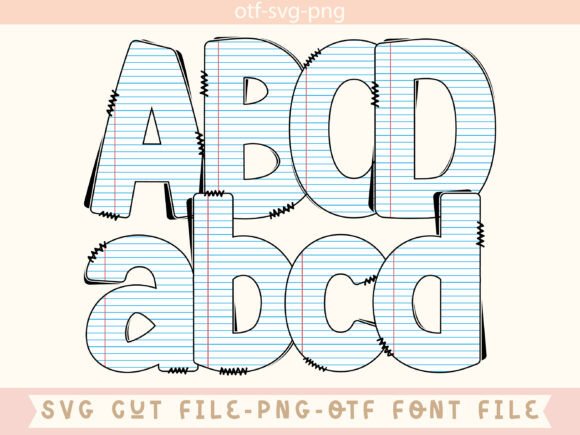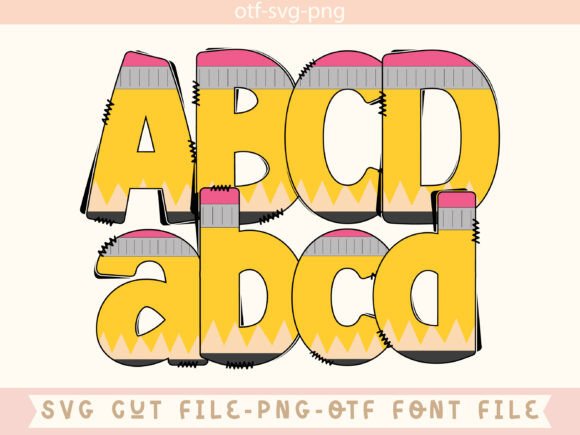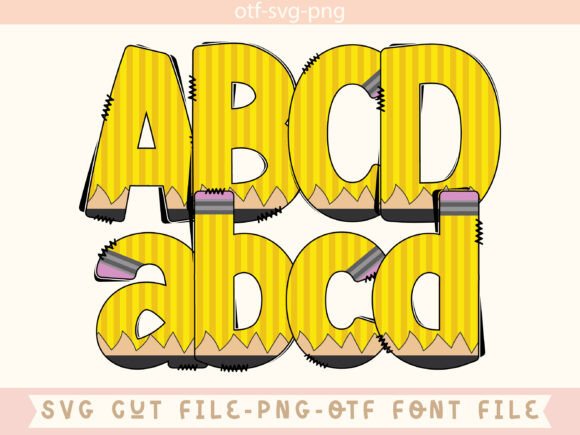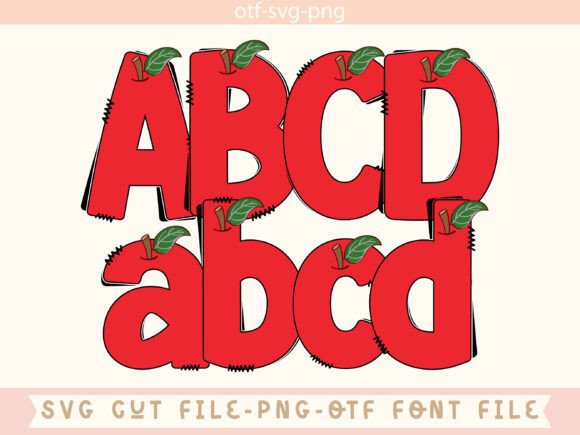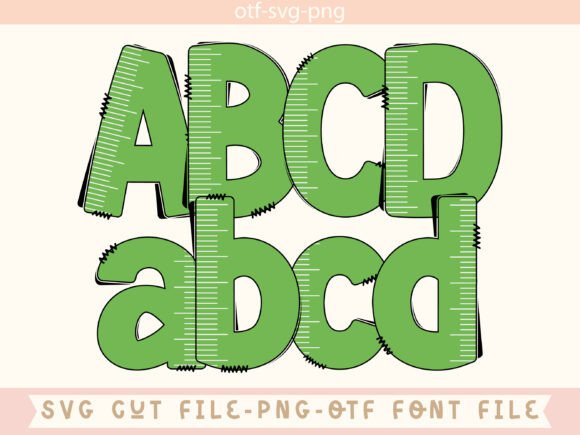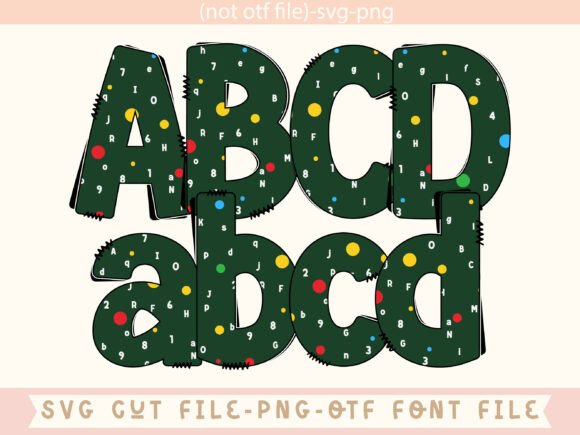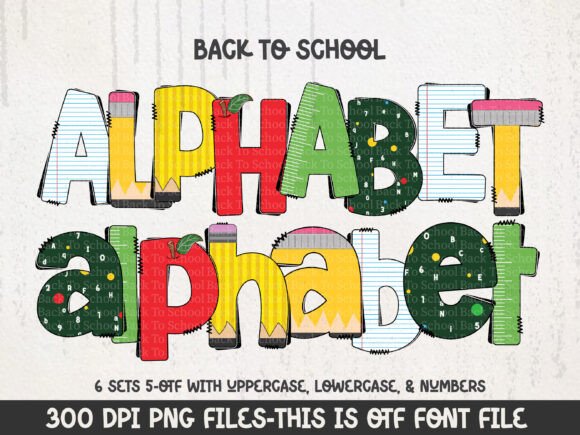
Back to School Font: Elevate Your School’s Branding and Creative Projects
As the new academic year approaches, schools are gearing up to refresh their branding and create engaging materials for students, teachers, and staff. One crucial element in establishing a strong visual identity is the choice of font. Introducing the Back to School Font, a cool lettered and display font designed specifically for schools to elevate their branding and creative projects.
What is Back to School Font?
The Back to School Font is a versatile and stylish font perfect for schools looking to add a personal touch to their materials. This font is ideal for creating eye-catching T-shirts, branding, custom DIY craft projects, quotes, and more. By combining specific colors with carefully chosen typefaces, schools can create a unique visual identity that reflects their values and spirit.
Key Features of Back to School Font
Creative Ways to Use Back to School Font
The Back to School Font is an excellent addition to any school’s creative projects. Here are some ideas to get you started:
• T-shirts and Apparel: Create custom T-shirts, hoodies, and hats with the Back to School Font for school sports teams, clubs, and organizations.
• Branding and Signage: Use the font to create eye-catching signs, posters, and banners for school events, open houses, and parent-teacher conferences.
• Custom DIY Craft Projects: Add a personal touch to DIY craft projects, such as paper crafts, iron-on designs, and vinyl decals.
• Quotes and Posters: Create inspiring quotes and posters featuring the Back to School Font to motivate students and staff.
Benefits of Using Back to School Font
By incorporating the Back to School Font into your school’s branding and creative projects, you’ll enjoy several benefits:
• Consistency: Establish a consistent visual identity across all school materials.
• Professionalism: Enhance your school’s professional image with high-quality typography.
• Creativity: Add a personal touch to your creative projects with a unique and stylish font.
The Back to School Font is an excellent choice for schools looking to elevate their branding and creative projects. With its versatility, compatibility, and stylish design, this font is perfect for a wide range of applications. Whether you’re a designer, crafter, or educator, the Back to School Font is sure to become an essential tool in your creative arsenal.